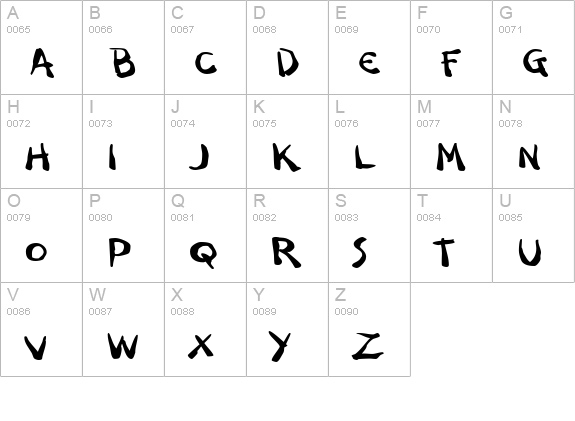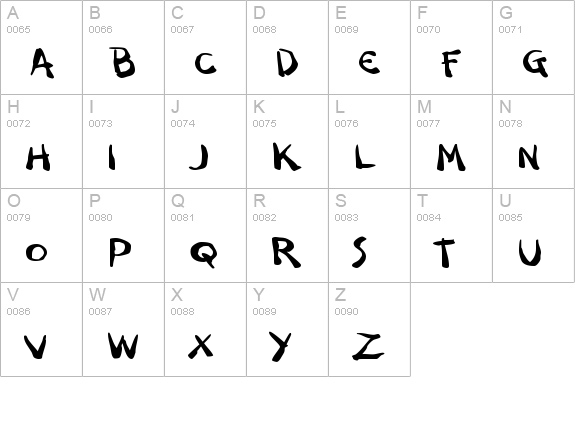
Dark Half BTN Ext font is a striking and bold typeface that exudes a sense of mystery and power. With its sharp edges and dark aesthetic, this font is perfect for creating designs that demand attention and make a statement. The extended version of the font provides additional impact and presence, making it ideal for headlines, logos, and other display purposes. The best part is that Dark Half BTN Ext font is completely free to download at FontsMarket.com. This means you can easily access this unique and eye-catching font to enhance your projects without any cost. Whether you're working on a poster, website, or branding materials, Dark Half BTN Ext font is sure to add a touch of intrigue and sophistication. Download it today and unleash the power of this captivating typeface in your designs.